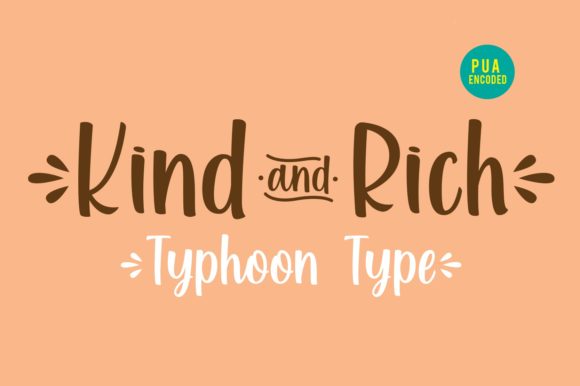
Prepare yourself for something truly special, font lovers! Picture this: a world where your ideas take center stage, where every letter dances with joy, and expression flows freely. In this world, fonts aren't just tools; they're magic wands that transform your thoughts into captivating pieces of art.
Introducing Kind and Rich, the script font that ignites creativity like never before. Say goodbye to monotonous lettering and embrace a font that breathes life into your words. Its casual yet trendy flair effortlessly illuminates your projects, making them shine with unique charm.
With Kind and Rich, you're not just downloading a font; you're inviting joy and energy into your design universe. Its playful personality adds a spark to social media posts, invitations, branding initiatives, and any project yearning for a touch of whimsy. Dive into the realm of imagination, where your designs become extraordinary creations that leave an unforgettable mark.
Step into a realm of endless possibilities. Whether you're a seasoned designer, a creative entrepreneur, or simply someone who loves the art of beautiful words, Kind and Rich becomes your secret weapon. Its versatility elevates your projects to new heights, allowing you to express yourself with unparalleled creativity.
So, what are you waiting for? Embrace the joy of Kind and Rich today, and unlock a font that will change the way you design forever. Let your imagination run wild, explore the uncharted territories of creativity, and turn your projects into masterpieces. The journey to design excellence starts now!